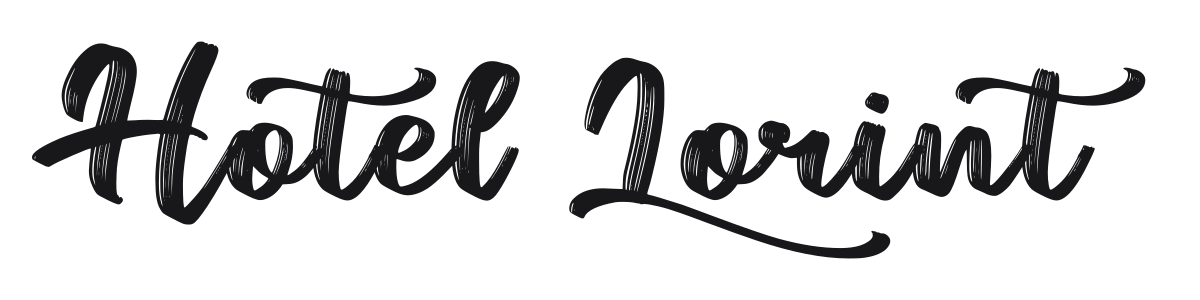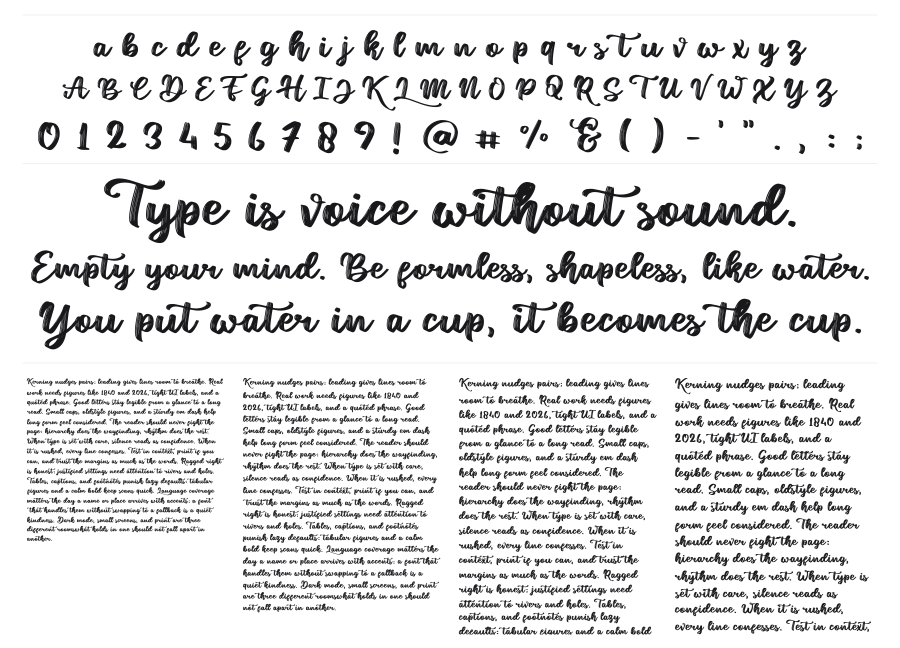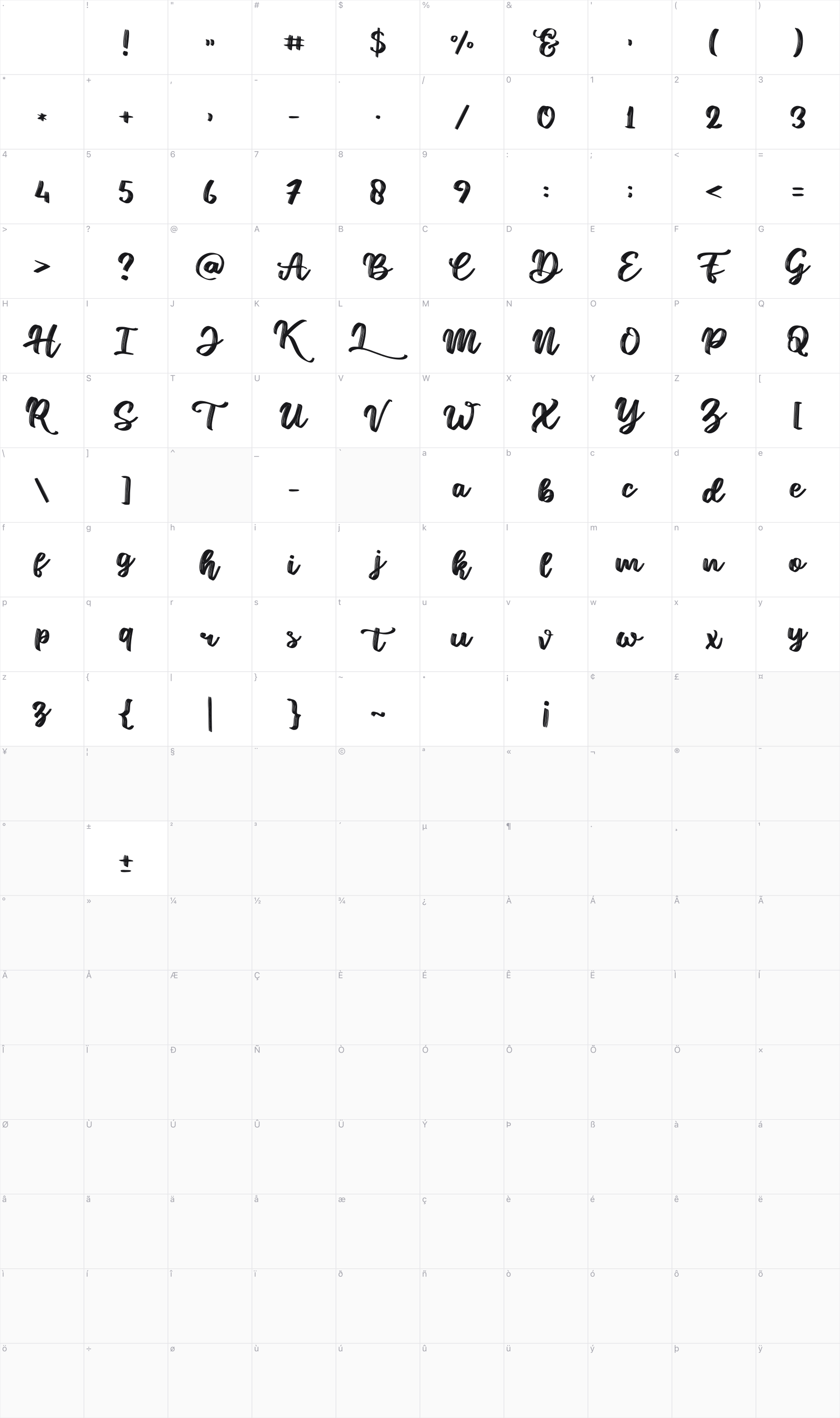
Hotel Lorint
Hotel Lorint is a bold brush script with thick, textured strokes that convincingly replicate the look of real bristle on paper. Visible ink roughness and strong contrast between swelling downstrokes and thin hairlines give it an authentic hand-lettered feel. It carries the warm, confident energy of mid-century sign painting and café chalkboards.